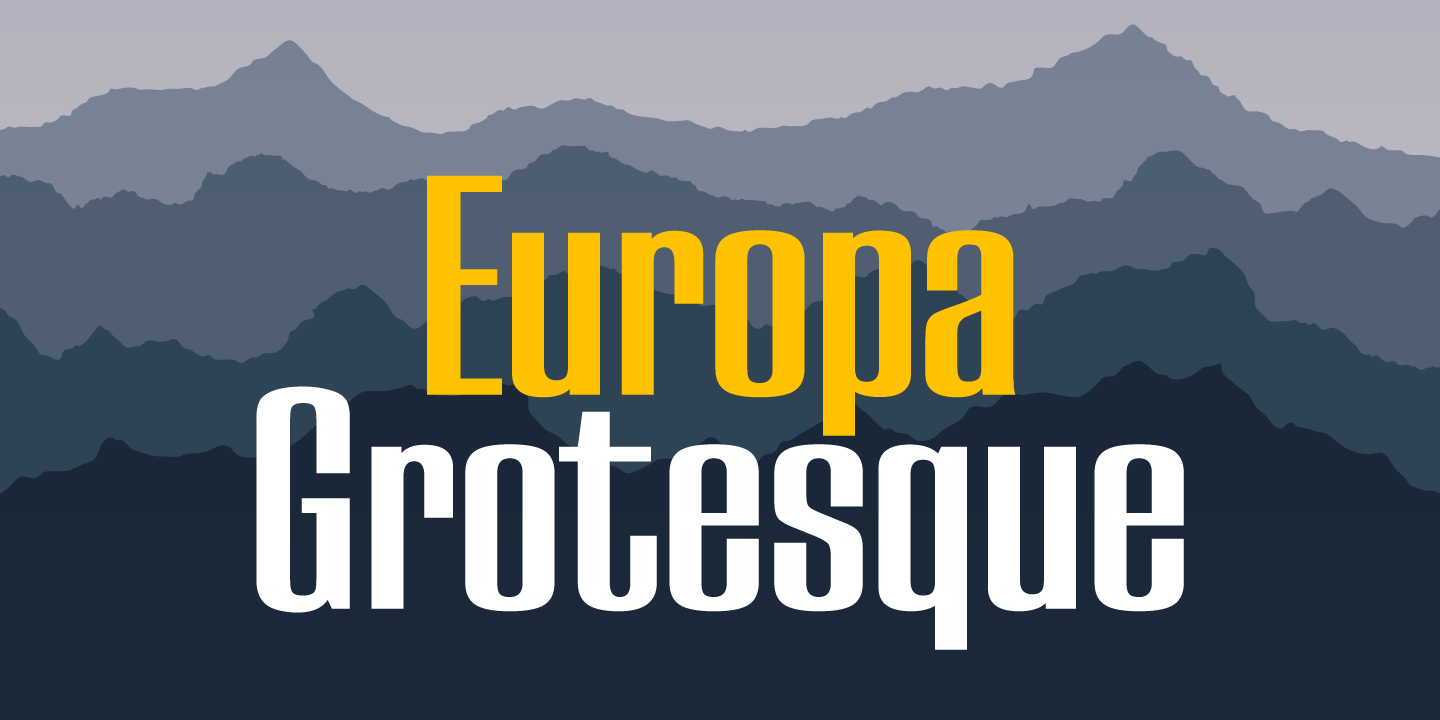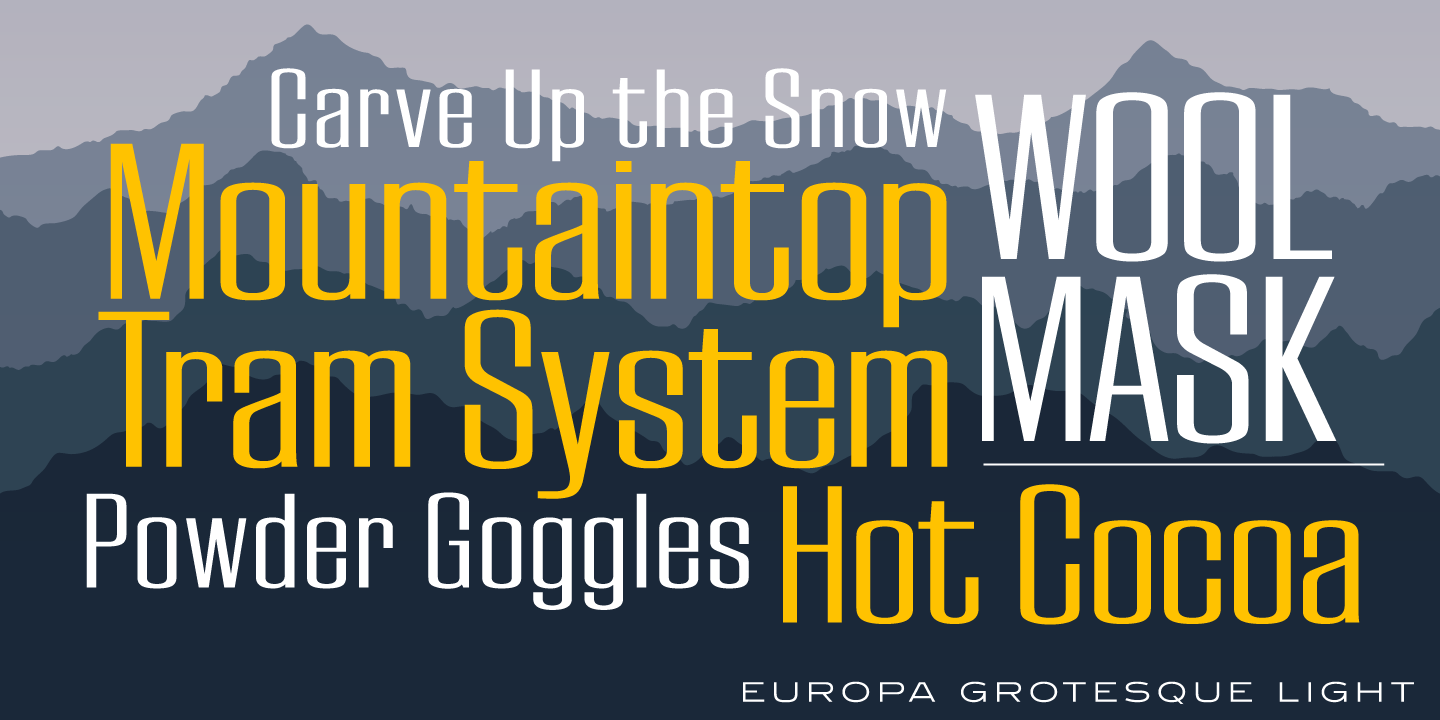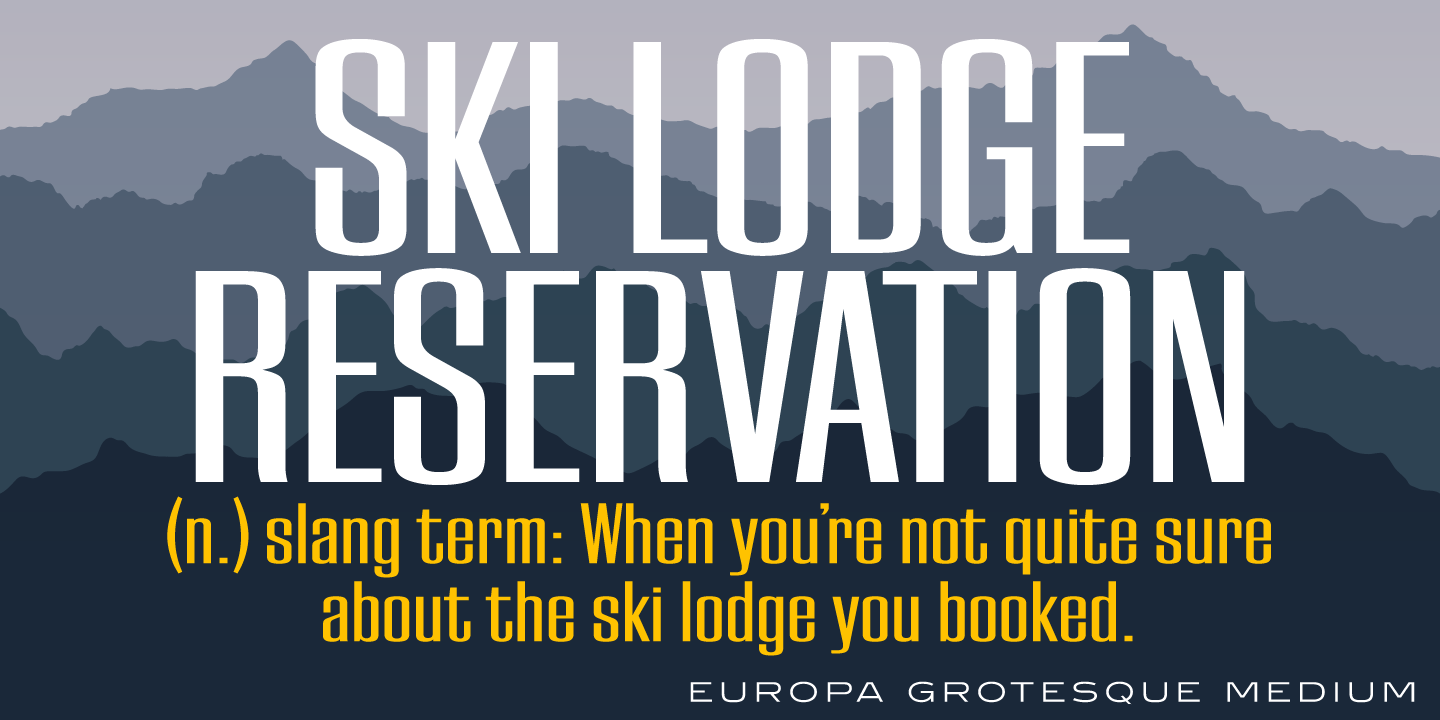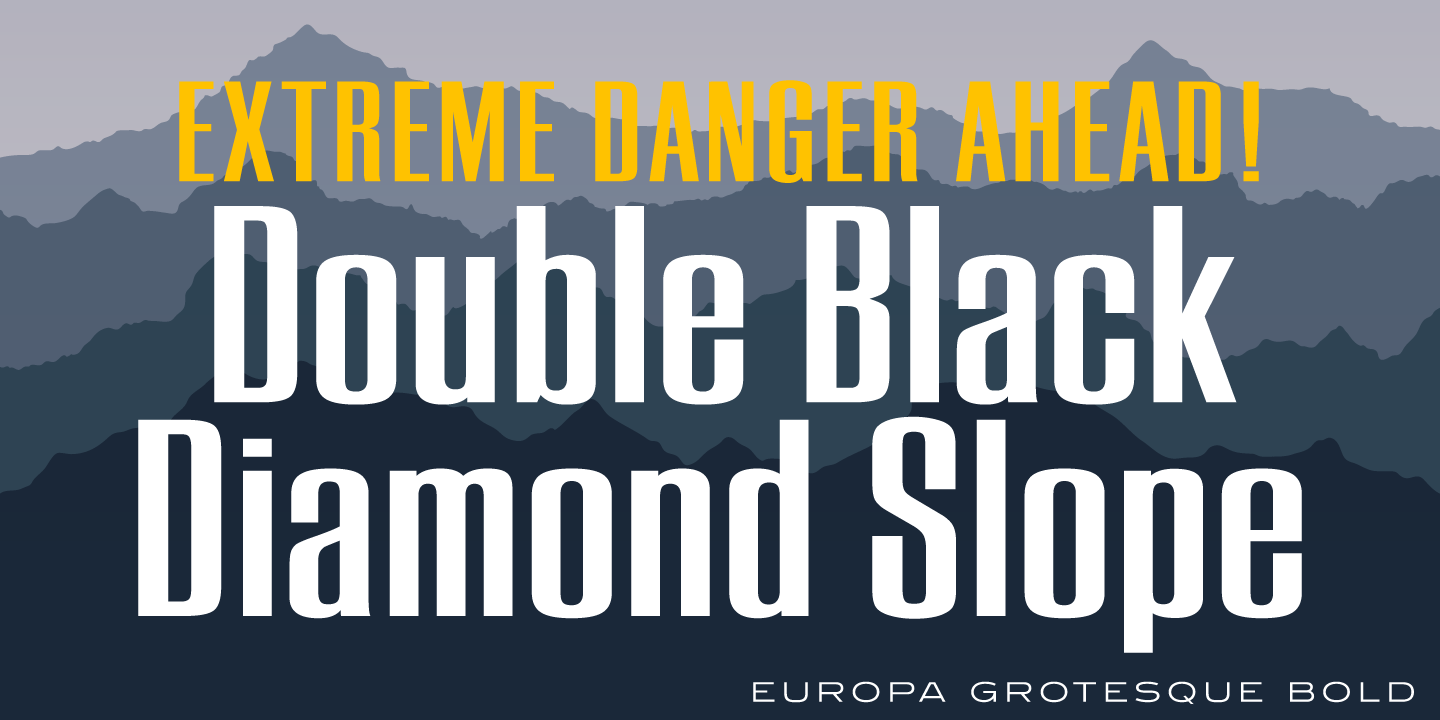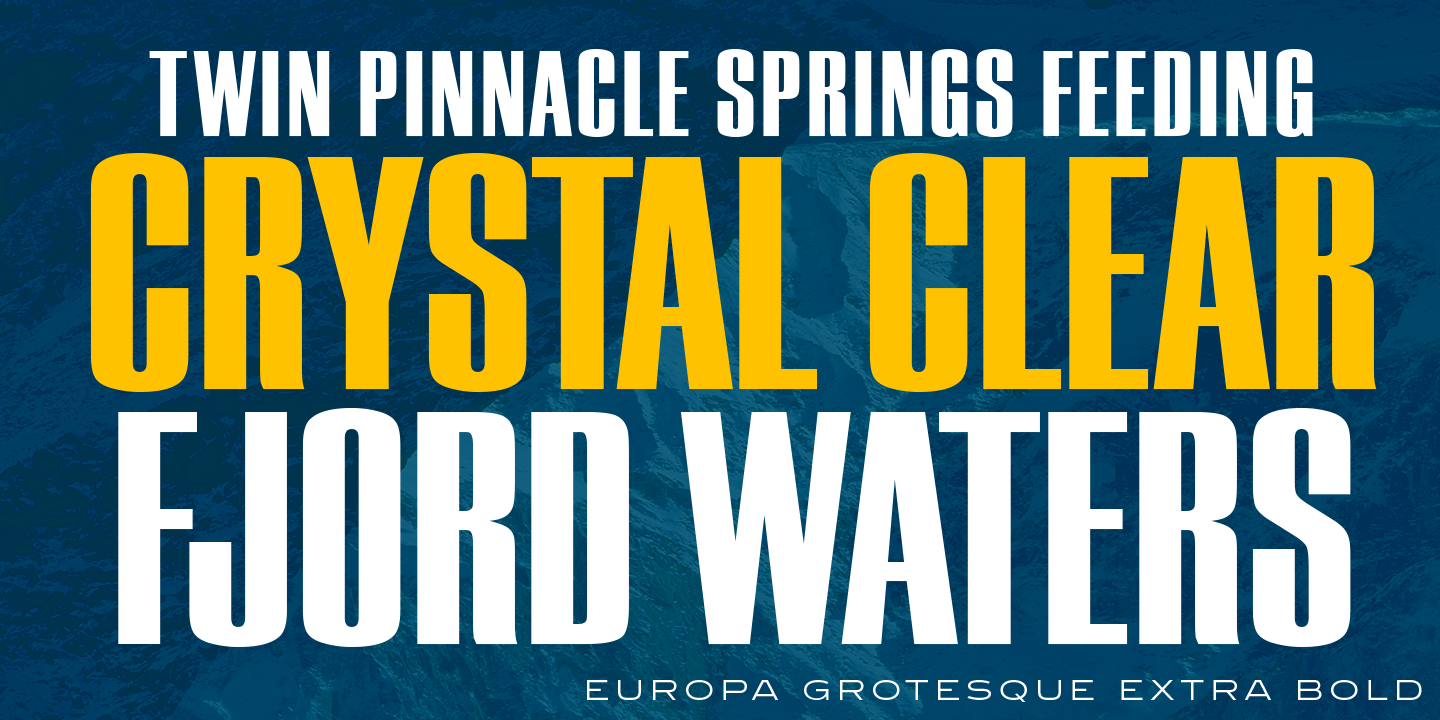
Europa Grotesque Font Family
Europa Grotesque is a condensed sans serif font family, and was exclusively licensed from the Techni-Process (TP) Collection. The original design was created by Sam Ardell (TP) in the 1950’s. Steve Jackaman (ITF) redrew and produced the digital fonts in 1994. Europa Grotesque has impressive impact at display and subhead sizes, and its geometric forms sustain that distinctiveness in both all-caps and lowercase. The family is flexible and freeform enough to support both a laid-back feel while still feeling tight and controlled.